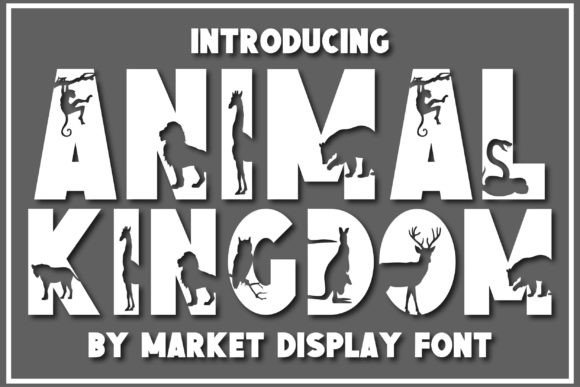
Introducing Animal Kingdom Font, the perfect decorative font for all your nature-inspired projects! This exquisite font is created by MDF and celebrates the beauty of nature and wildlife in all its forms. With its intricate animal-themed design, Animal Kingdom is sure to turn your craft ideas into stunning masterpieces.
This unique decorative font features a variety of animal shapes and is the perfect choice for anyone looking to add a touch of nature to their designs. Whether you're designing invitations for a jungle-themed party or creating a logo for a wildlife conservation organization, Animal Kingdom is sure to make a lasting impression.
Animal Kingdom Font is not just another run-of-the-mill font. It's a font that tells a story, evokes emotions, and brings your designs to life. With its organic and flowing design, it's easy to see why Animal Kingdom has become a favorite among designers and artists alike.
Whether you're a professional graphic designer or a hobbyist, Animal Kingdom is the perfect addition to your collection of decorative fonts. Its versatility and eye-catching design make it a must-have for anyone looking to elevate their designs to the next level.